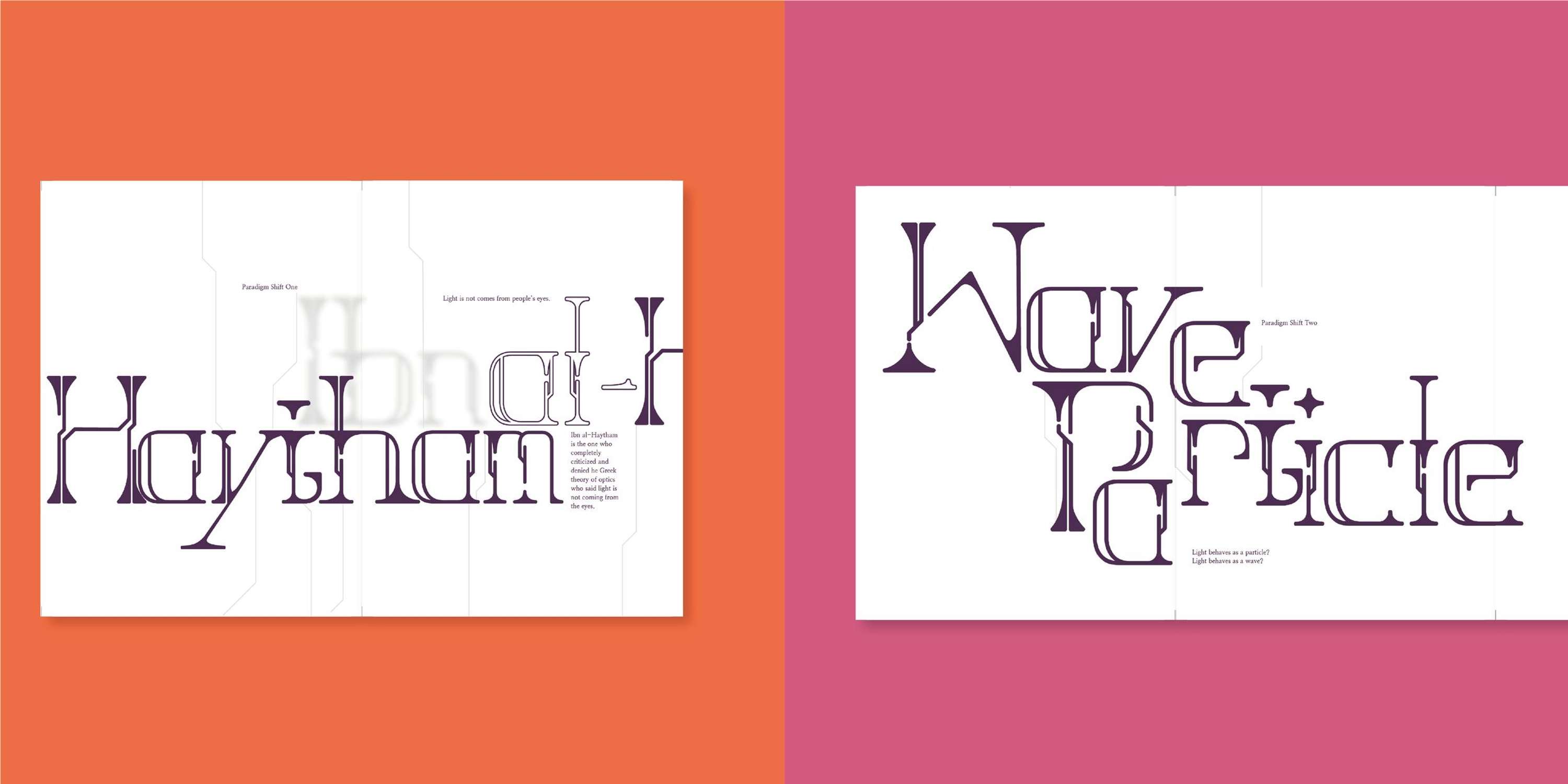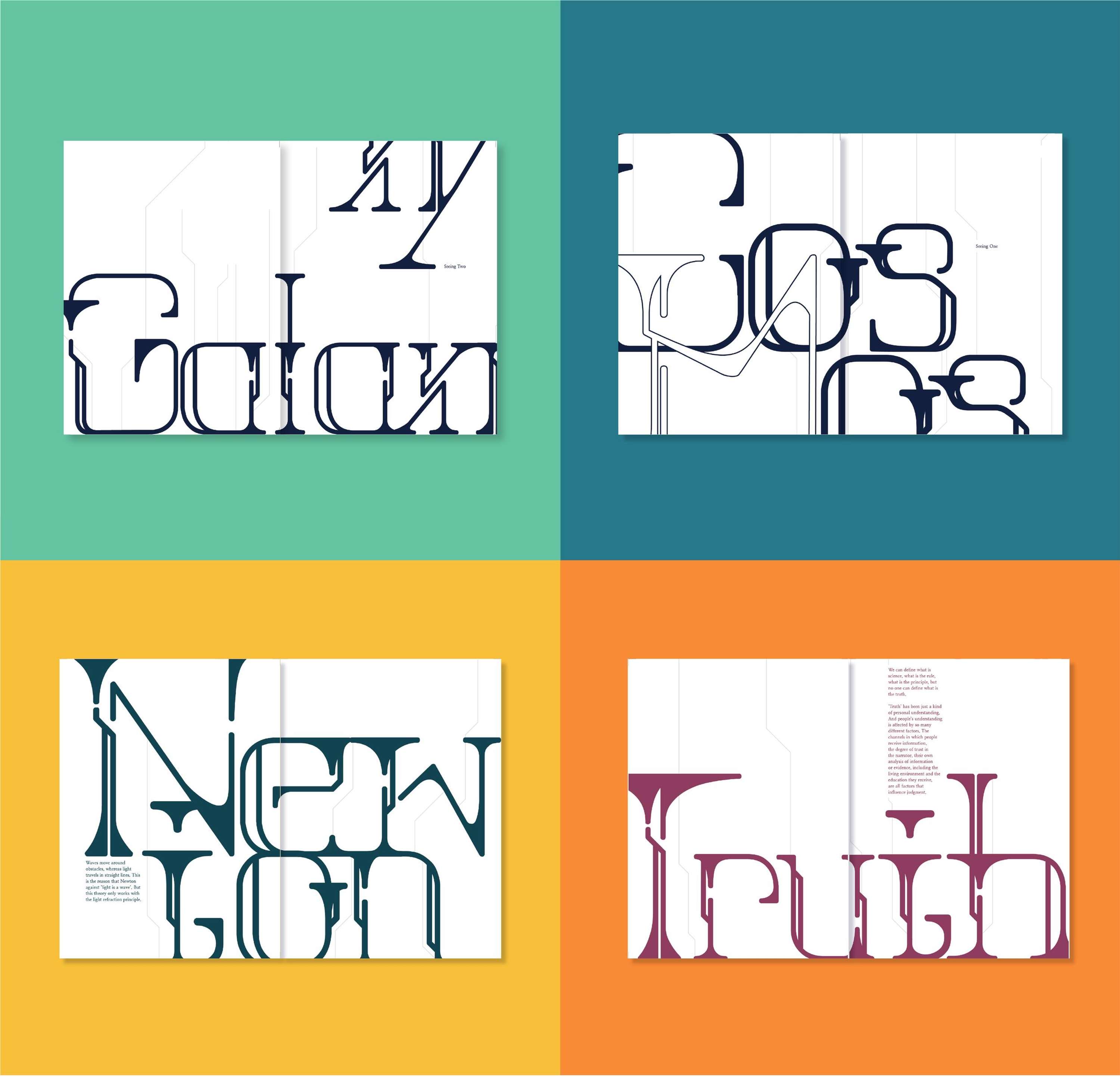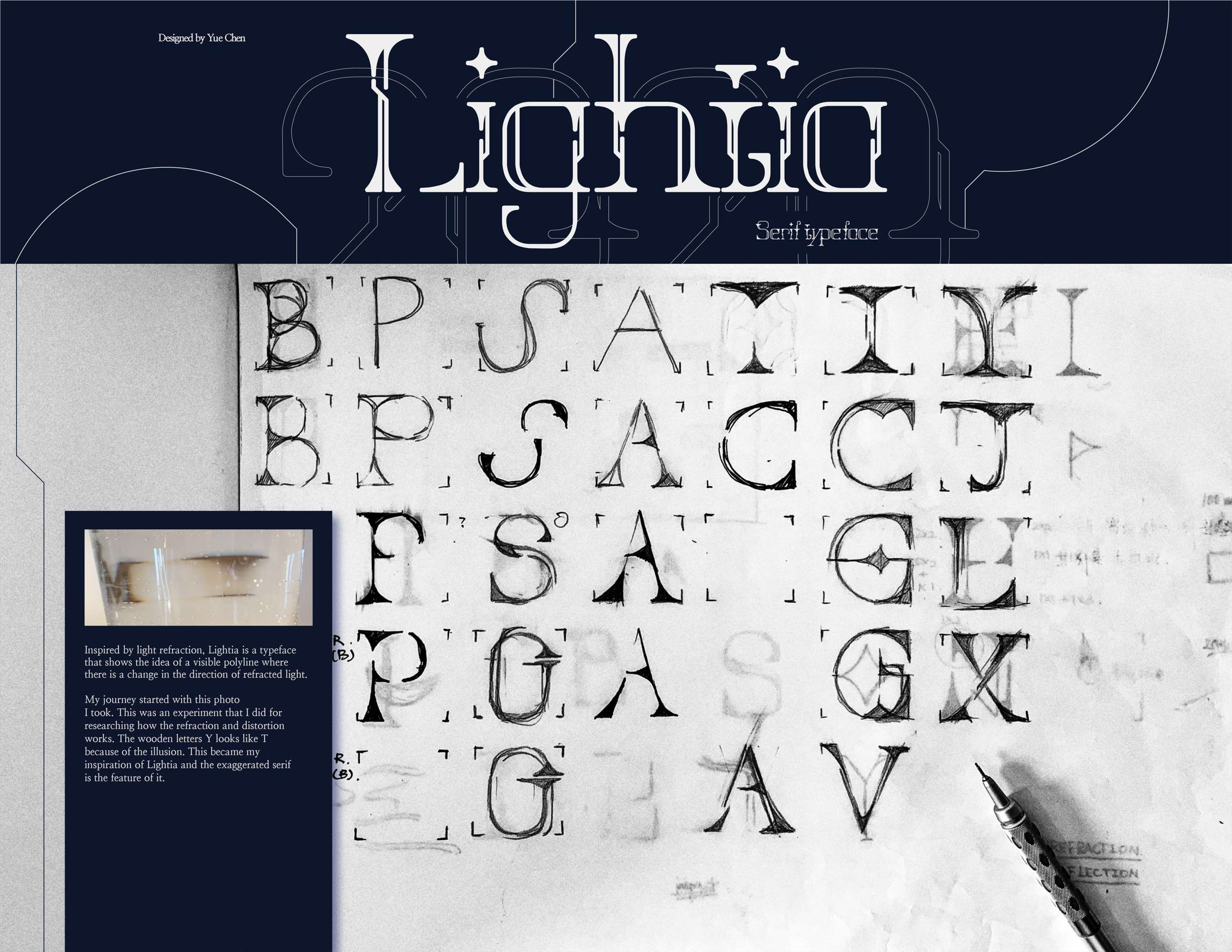
Lightia | Display Font Design
• Yue Chen
‘I see light, the cosmos, paradigms and truth,’ is a project based around the design for a bespoke typeface. Inspired by light refraction, ‘Lightia’ uses the idea of a visible polyline that changes with the direction of refracted light. The project aims to present multiple sides of a ‘truth,’ rather than a binary truth where only black and white/yes or no/real or fake, are offered.
Lightia | Display Font Design by Yue Chen